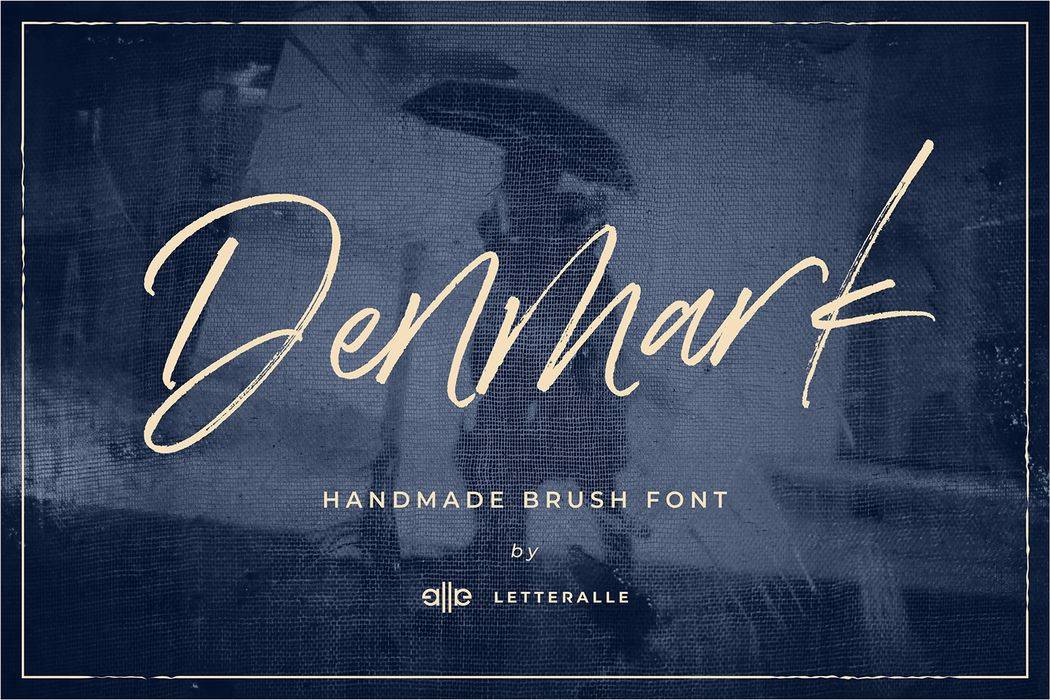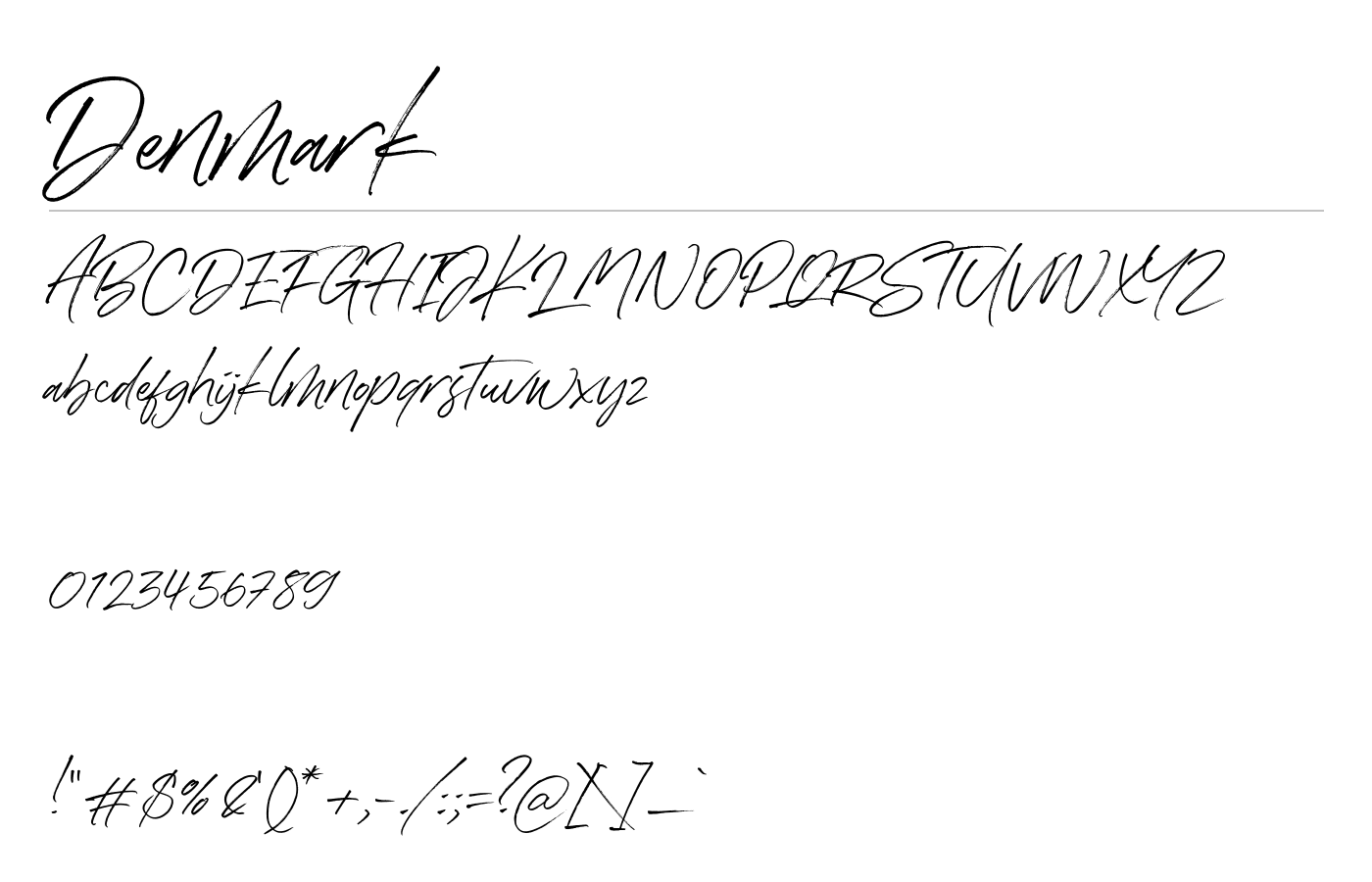
Denmark Font is a slender, elegant handwritten script with a natural, flowing style that captures the look of casual yet refined calligraphy. Its thin, slightly textured strokes and varied line weight add a personal, artistic touch, making it ideal for creative branding, invitations, and stylish editorial designs where a sophisticated but approachable feel is desired. This font works best in display settings where its unique, graceful letterforms can shine and enhance a delicate, expressive mood.
Denmark Font
About Denmark Font